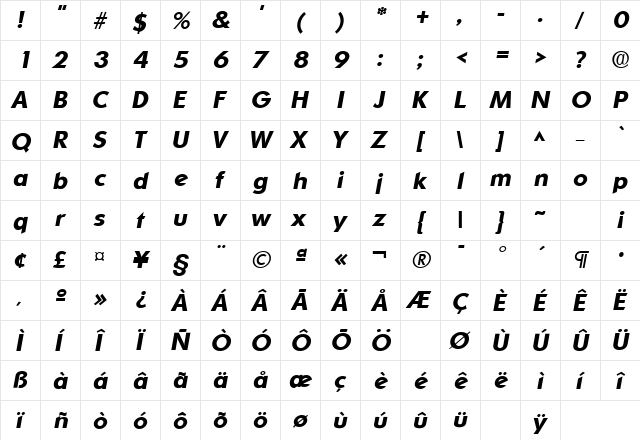
Ornitons Bold Italic
Design Context for Ornitons Typeface
Ornitons takes a measured approach to typography — its balanced proportions and neutral character make it a reliable workhorse for both digital and print work. Its italic angle brings a sense of urgency and motion to the letterforms. Its bold stroke weight gives it real presence on the page.
Pro Tip: Use Ornitons for emphasis, pull quotes, and subheadings where its slanted energy can add rhythm to the layout.